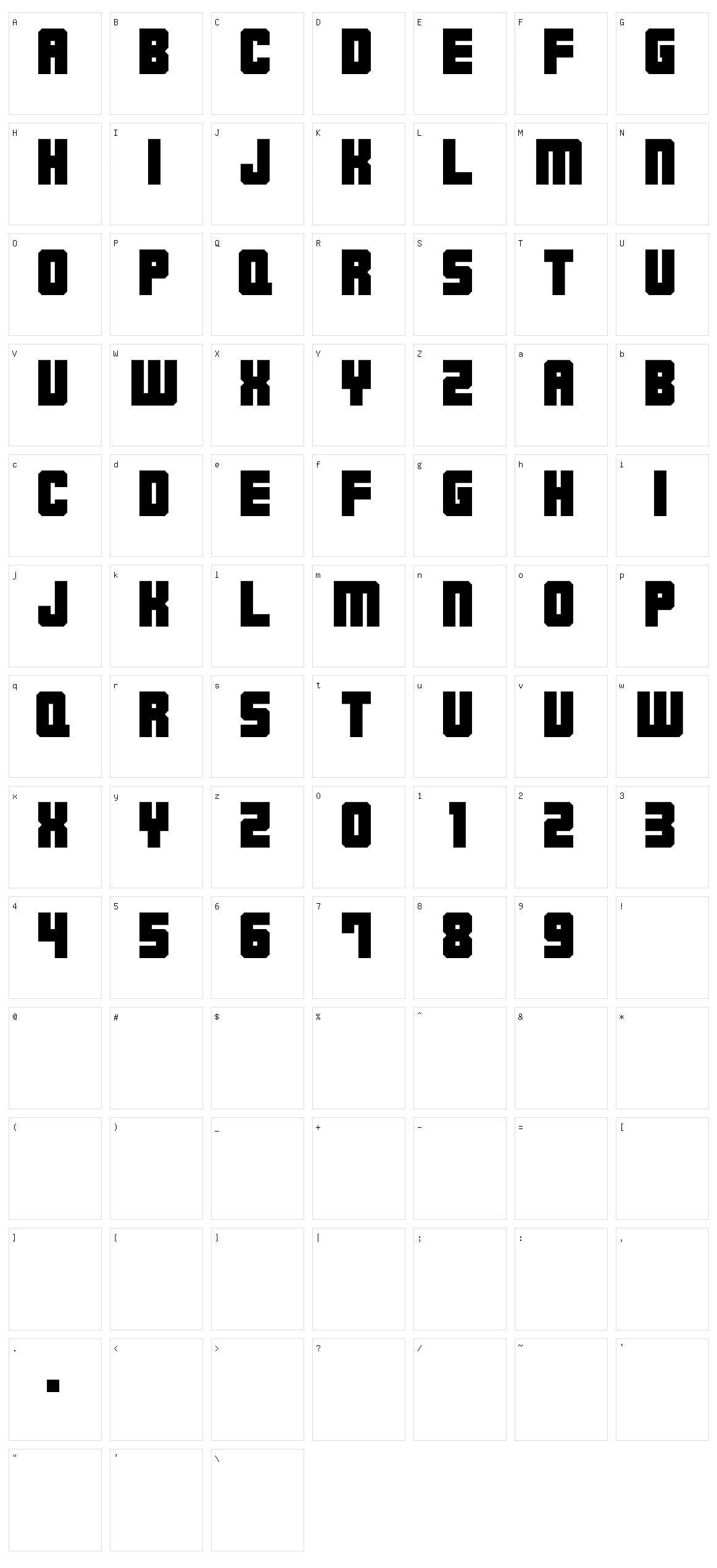
M23 Hydrant Special
Designed by: Miffies
ƒtƒ@ƒ~ƒRƒ“”ŁuƒnƒCƒhƒ‰ƒCƒhEƒXƒyƒVƒƒƒ‹vƒƒSƒtƒHƒ“ƒgB
‚±‚̃Q[ƒ€AŽÀ‚̓tƒ@ƒ~ƒRƒ“‰RPG‚¾‚Á‚½‚肵‚Ü‚µ‚½B
‚Ü‚ŸAŒµ–§‚ɂ̓AƒNƒVƒ‡ƒ“RPG‚Å‚·‚¯‚ǂˁB
“–Žž‚Æ‚µ‚Ă͂©‚È‚è‰æŠú“I‚È“à—e‚Å‚µ‚½B
ƒƒS‚àŽŠ‹ÉƒVƒ“ƒvƒ‹‚ŃTƒNƒb‚ƍì‚ê‚Ü‚µ‚½B